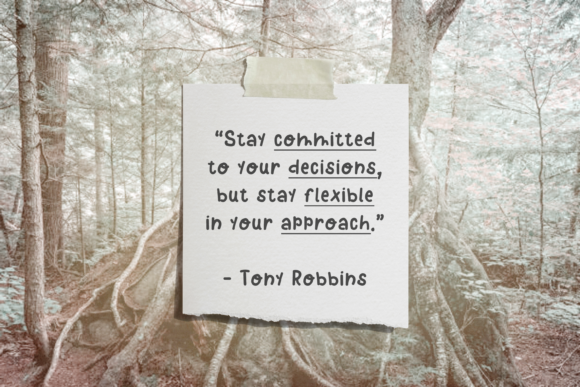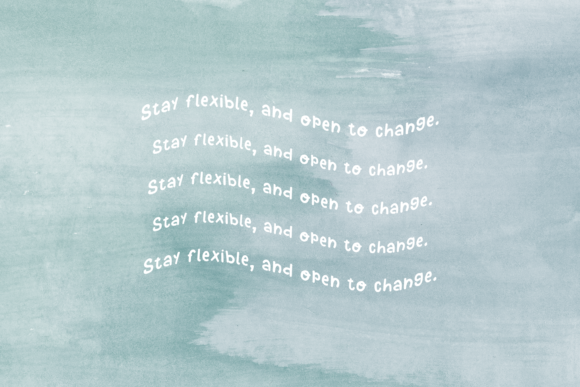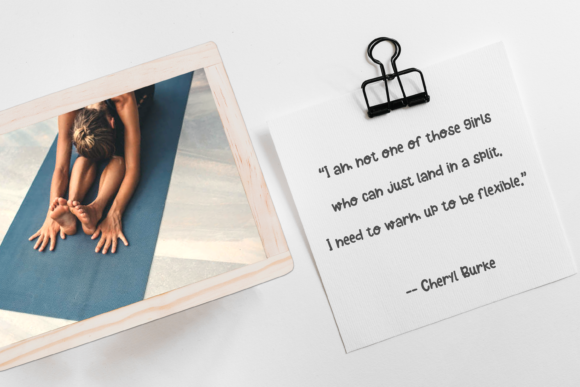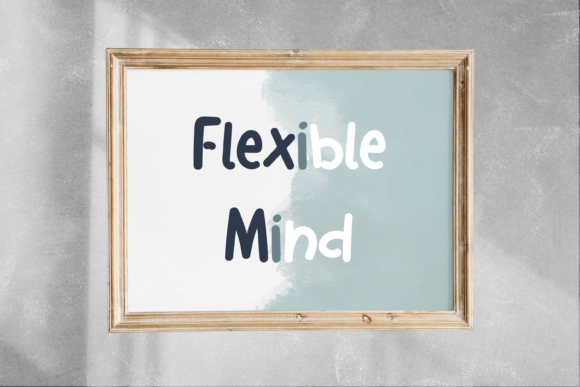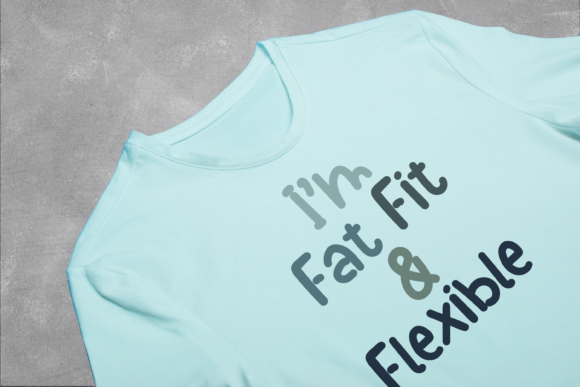
The Ultimate Design Game-Changer: Flexible Things Font
I’ll never forget the time I was working on a project for a children’s birthday party, and I just couldn’t find the right font to match the playful vibe I was going for. The client wanted something that screamed fun, youthful energy, and a dash of whimsy. I scoured the internet, tried out a dozen fonts, but nothing seemed quite right. That was until I stumbled upon Flexible Things Font. 💥
A Personal Review: What I Love About Flexible Things Font
Flexible Things Font is a bouncy & playful handwritten script font that’s been a total game-changer for my designs. Here’s what I love about it:
- ✨ Incredibly youthful feel that’s perfect for projects that need a playful touch
- 🌈 A wide range of OpenType features, glyphs, and stylistic alternates to customize your text
While Flexible Things Font is an amazing addition to any design project, there are a few things to keep in mind:
- 🤔 Some of the more intricate glyphs can get a bit lost at very small font sizes
- ⚠️ Not ideal for body text or long-form content, as it’s best used for headings and titles
- Take advantage of OpenType features like ligatures and stylistic alternates to add visual interest to your text
The Story Behind Flexible Things Font
Flexible Things Font was designed with one goal in mind: to create a font that embodies the carefree spirit of youth. The designer, inspired by the playful scribbles of childhood, set out to craft a font that’s equal parts fun, energetic, and versatile. The result is a font that’s perfect for any project that needs a dash of whimsy and personality.
Q: What makes Flexible Things Font so special?
A: Flexible Things Font is special because of its incredibly youthful feel and versatility. It’s perfect for a wide range of design projects, from party invitations to social media graphics.
Q: Is Flexible Things Font easy to read?
A: Yes, Flexible Things Font is highly legible, even at smaller font sizes. However, it’s best used for headings and titles, rather than body text or long-form content.